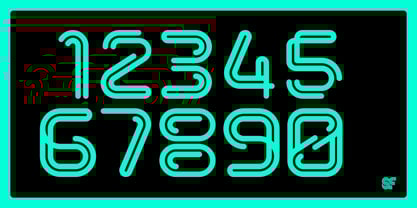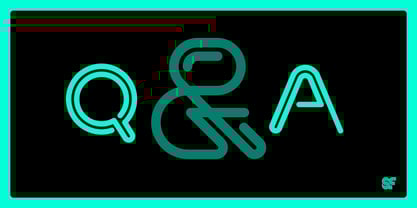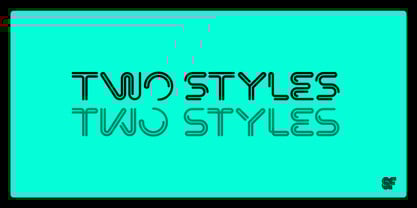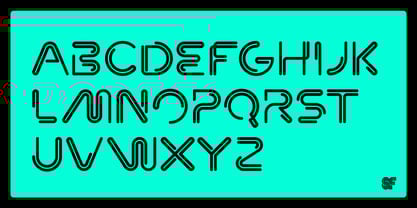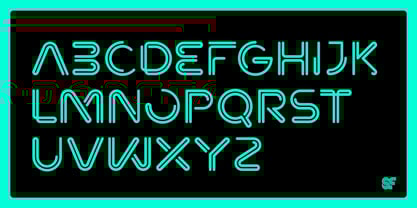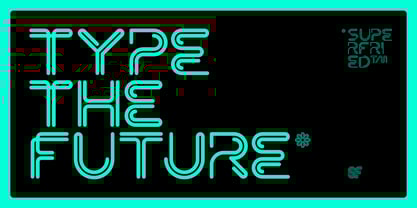
Neon
La familia tipográfica Neon fue diseñada por Mark Richardson y publicada por Superfried. Neon contiene 1 estilos.
NEW – Updated for 2025! Originally designed back in 2014, Neon is an experimental, retro sci-fi display typeface by Superfried. Remastered for 2025, this unique font showcases significant design enhancements, including refined glyphs and improved spacing for optimal readability.  Neon offers two unique styles that can be easily toggled using the shift key, allowing for versatile applications in various design projects. Inspired by neon signage, classic sci-fi films, and video games from my childhood, Neon has evolved into a distinctive display typeface that stands out in branding, editorial, and web design.  With 266 glyphs, Neon is perfect for creating eye-catching headlines and graphics. Featured in Computer Arts magazine and on North East, it’s a must-have for designers looking to add a touch of retro flair to their work.